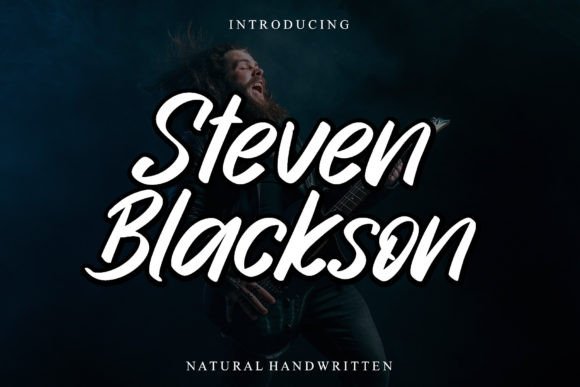
**Introducing Steven Blackson Font: Your Gateway to Creative Expression**
In a world where individuality thrives, your online presence needs to stand out, and Steven Blackson Font is the key to unlocking your creative potential. This beautiful script font, meticulously crafted by Letterafa Studio, is a symphony of elegance, artistry, and charm. Experience the magic of Steven Blackson and elevate your digital creations to new heights.
**A Touch of Elegance for Every Occasion**
With its graceful strokes and captivating curves, Steven Blackson Font adds an unmatched touch of sophistication to your designs. Whether you're crafting wedding invitations, thank you cards, or eye-catching logos, this font elevates your words into works of art. Its versatility shines through in greeting cards, business cards, and any project that demands a handwritten flair.
**Experience the Beauty of Handwritten Charm**
Steven Blackson Font captures the essence of natural handwriting, bringing a personal touch to your digital creations. Each letter dances across the screen, exuding a sense of authenticity and warmth. Let your words flow effortlessly, leaving a lasting impression on your audience.
**Create Designs That Speak to the Heart**
In a world saturated with digital noise, Steven Blackson Font cuts through the clutter, captivating your audience with its understated elegance. Its unique characters evoke emotions, drawing readers into your messages. Make a statement, tell a story, and forge connections that resonate with your audience.
**Embark on a Creative Journey with Steven Blackson Font**
Unlock the endless possibilities of creativity with Steven Blackson Font. Transform your digital presence into a reflection of your unique style and vision. Let your imagination soar as you explore the boundless applications of this beautiful script font. Experience the joy of self-expression and leave an indelible mark on the digital world.